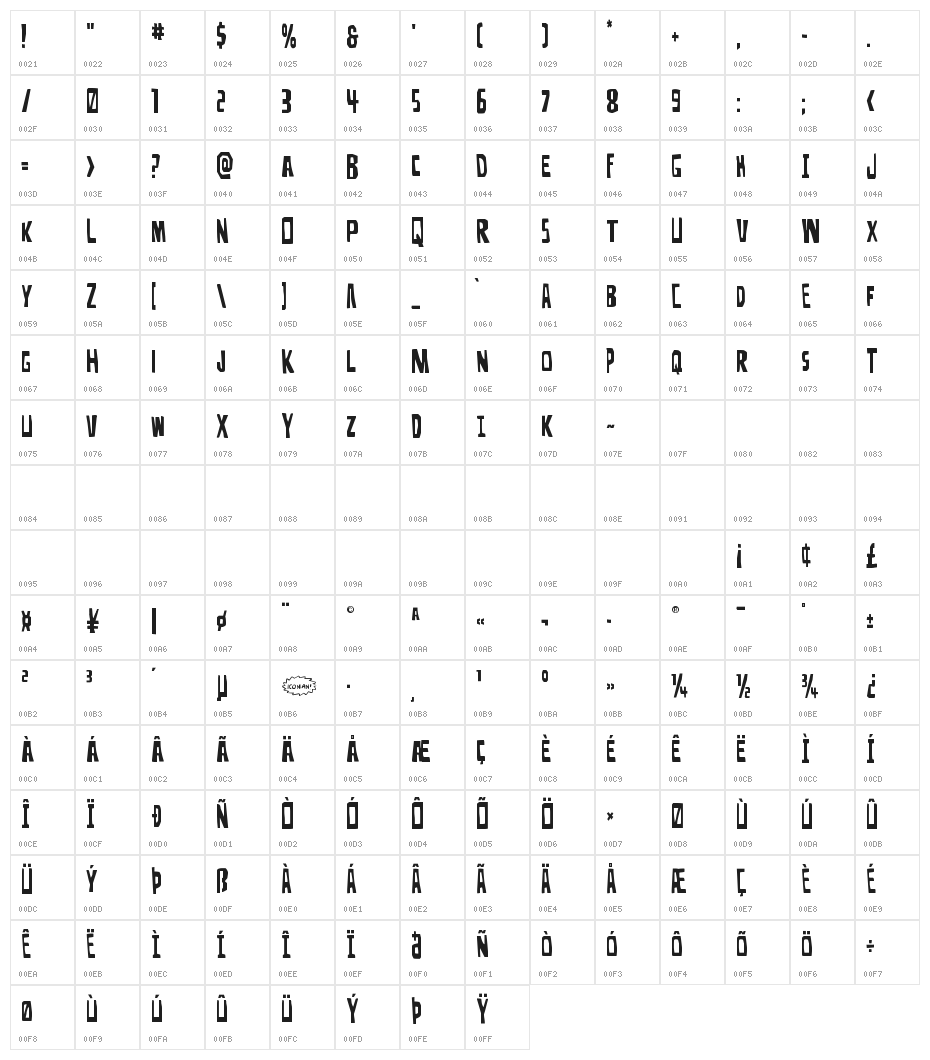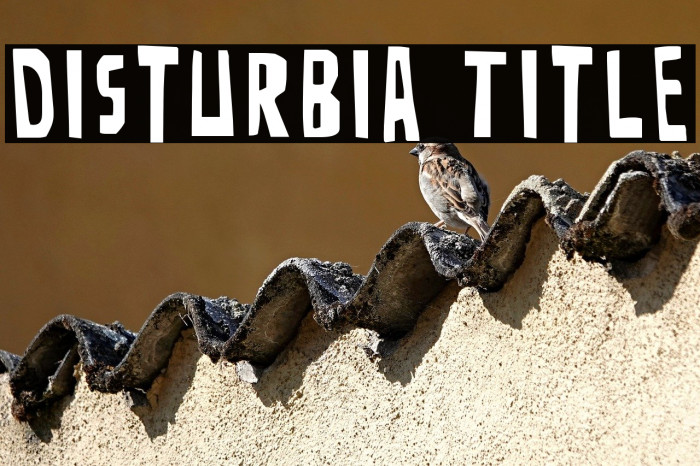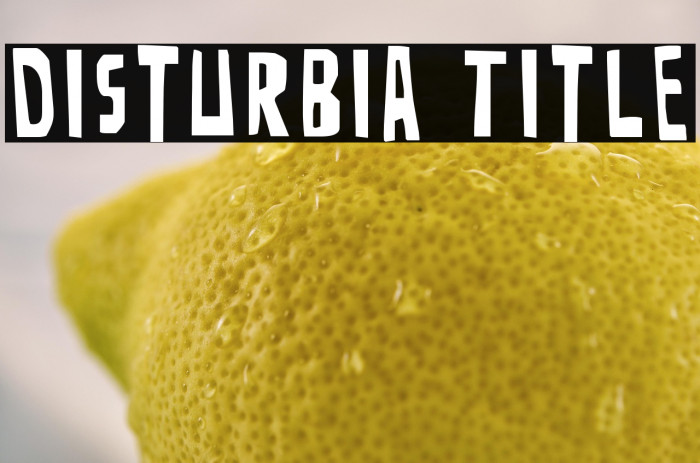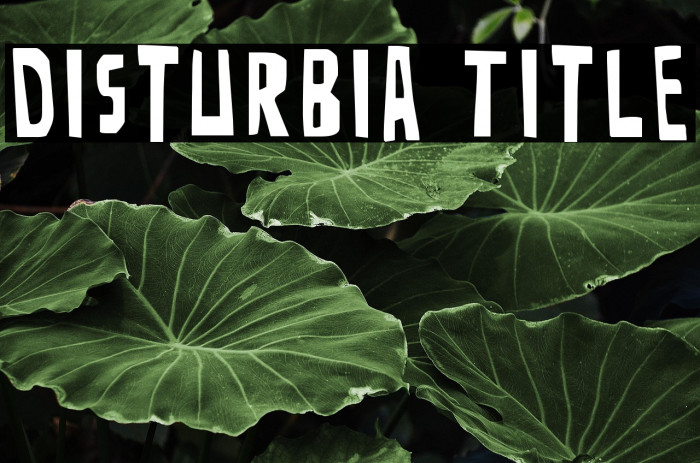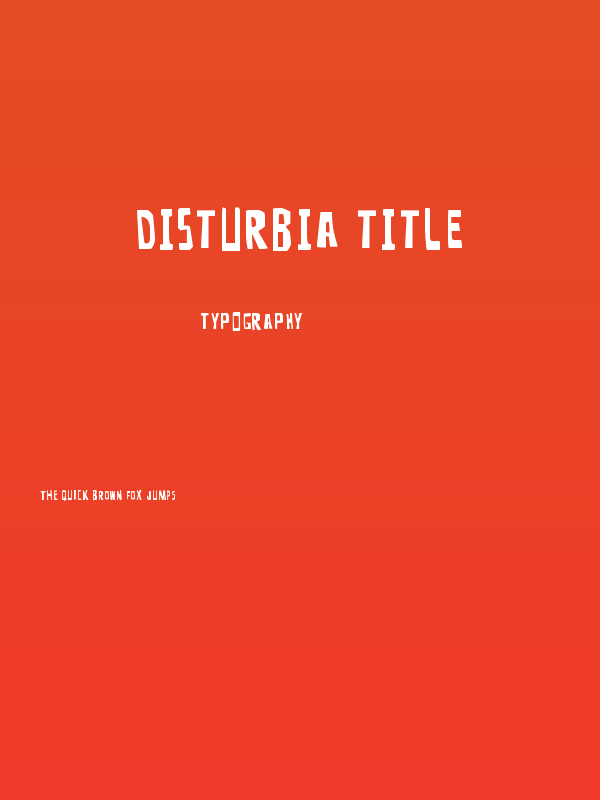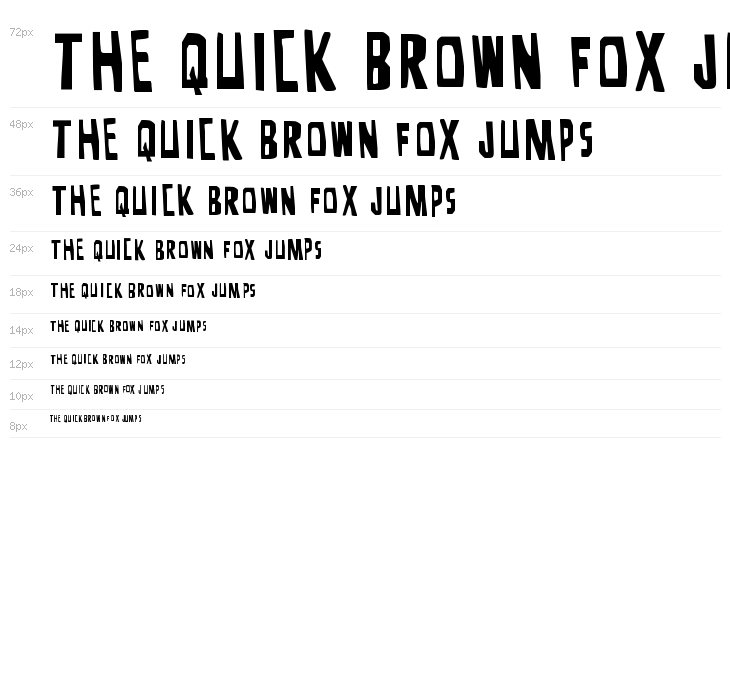
Disturbia Title Font
Disturbia Title Description
This font features a bold, irregular style with a slightly distorted appearance, giving it a unique and edgy look. The characters are unevenly shaped, with varying widths and heights, creating a sense of movement and dynamism. The uppercase and lowercase letters maintain a consistent style, with sharp angles and a hand-drawn feel. Numbers and special characters follow the same aesthetic, making the font suitable for creative and unconventional designs. The overall appearance is striking and attention-grabbing, perfect for projects that require a distinctive and bold typeface.
| Overall Style | Modern, Edgy |
| Proposed Projects | Ideal for album covers, movie posters, edgy branding, and creative design projects. |